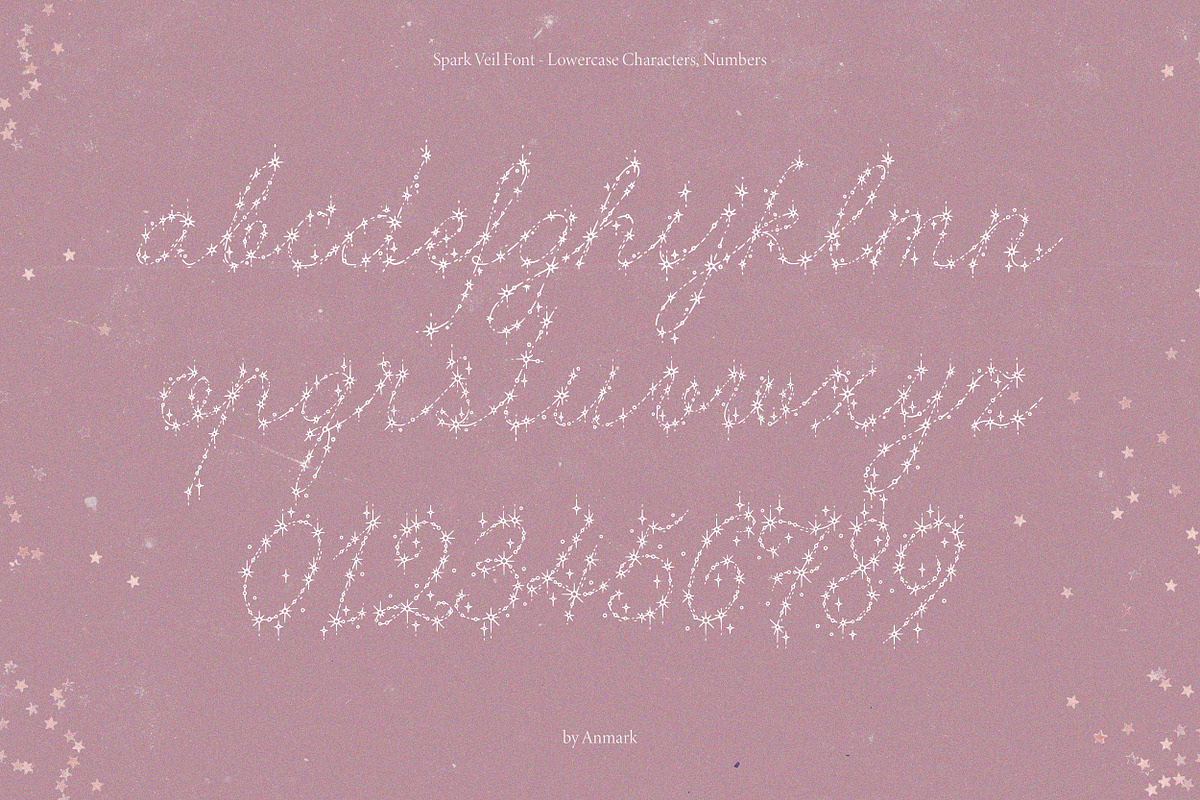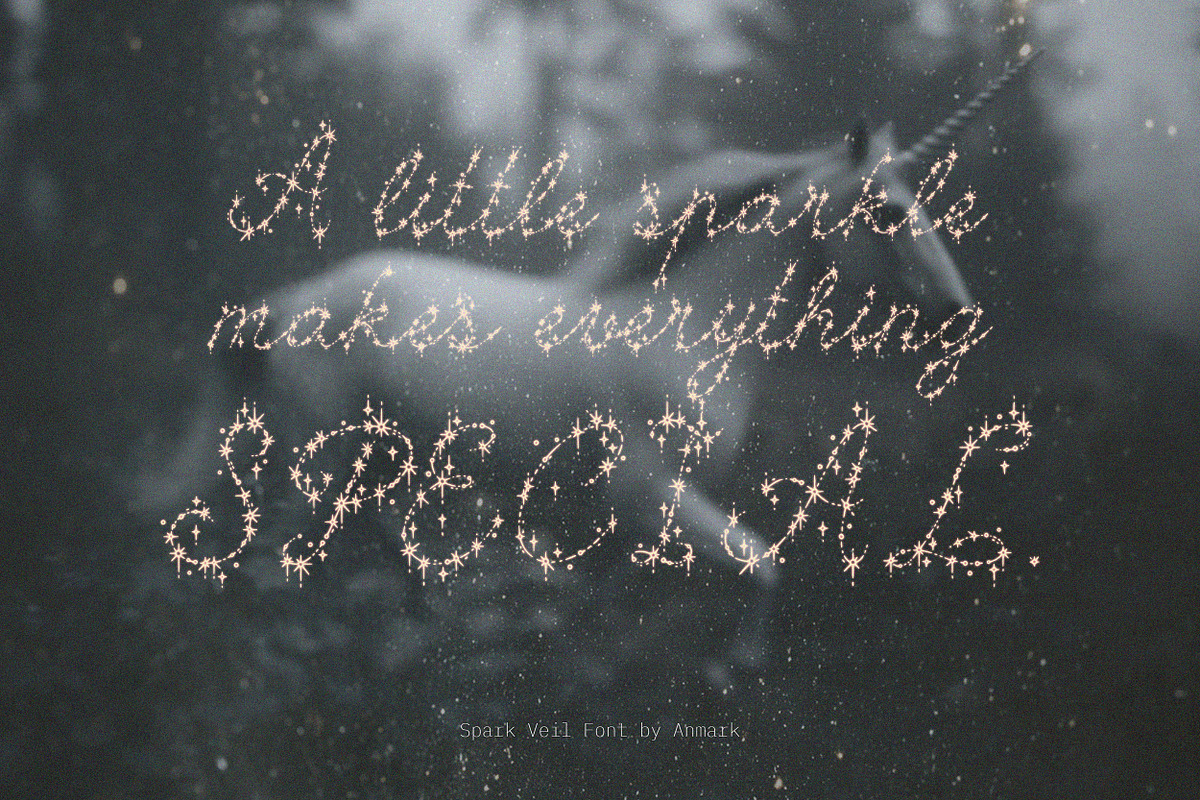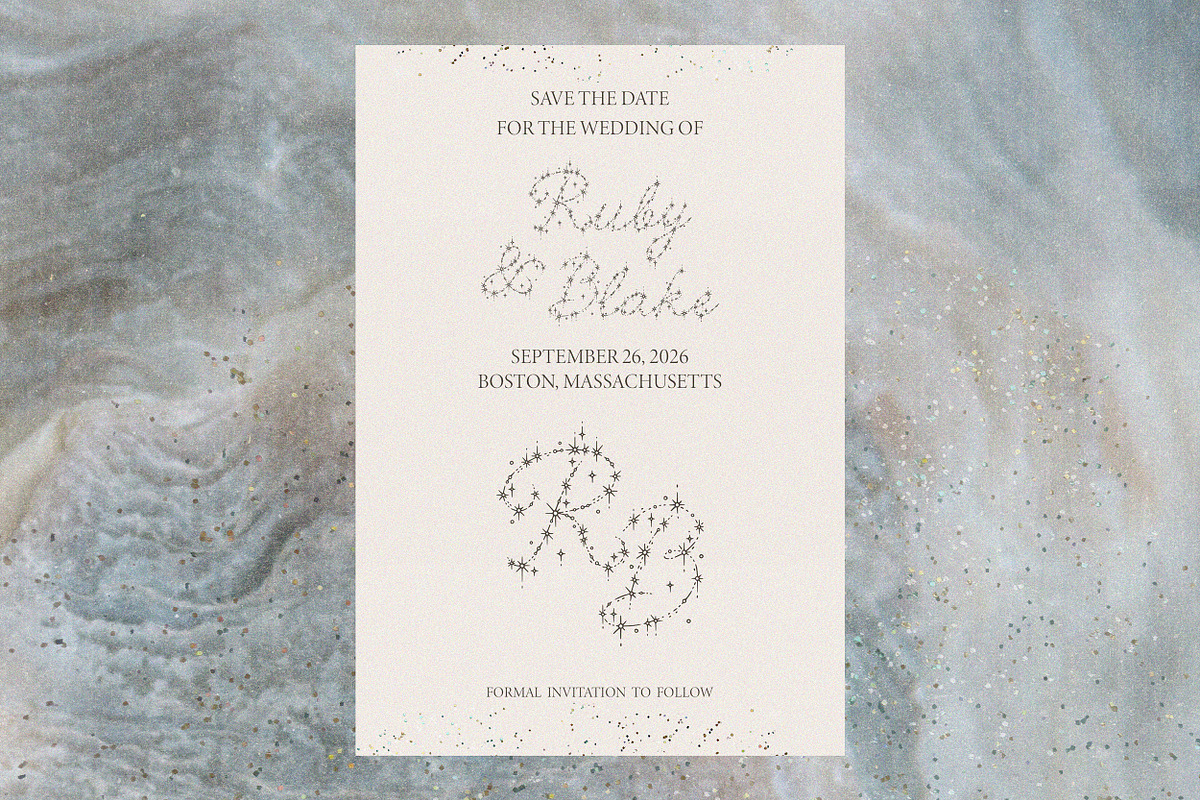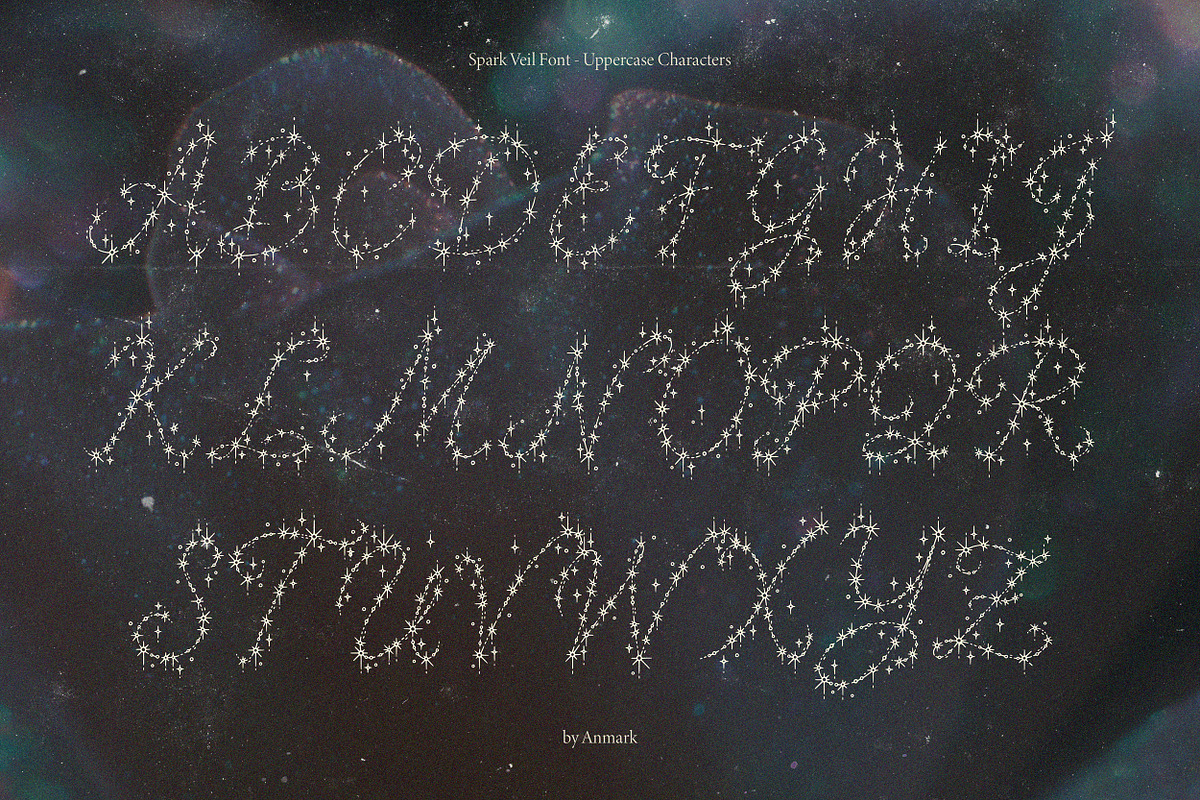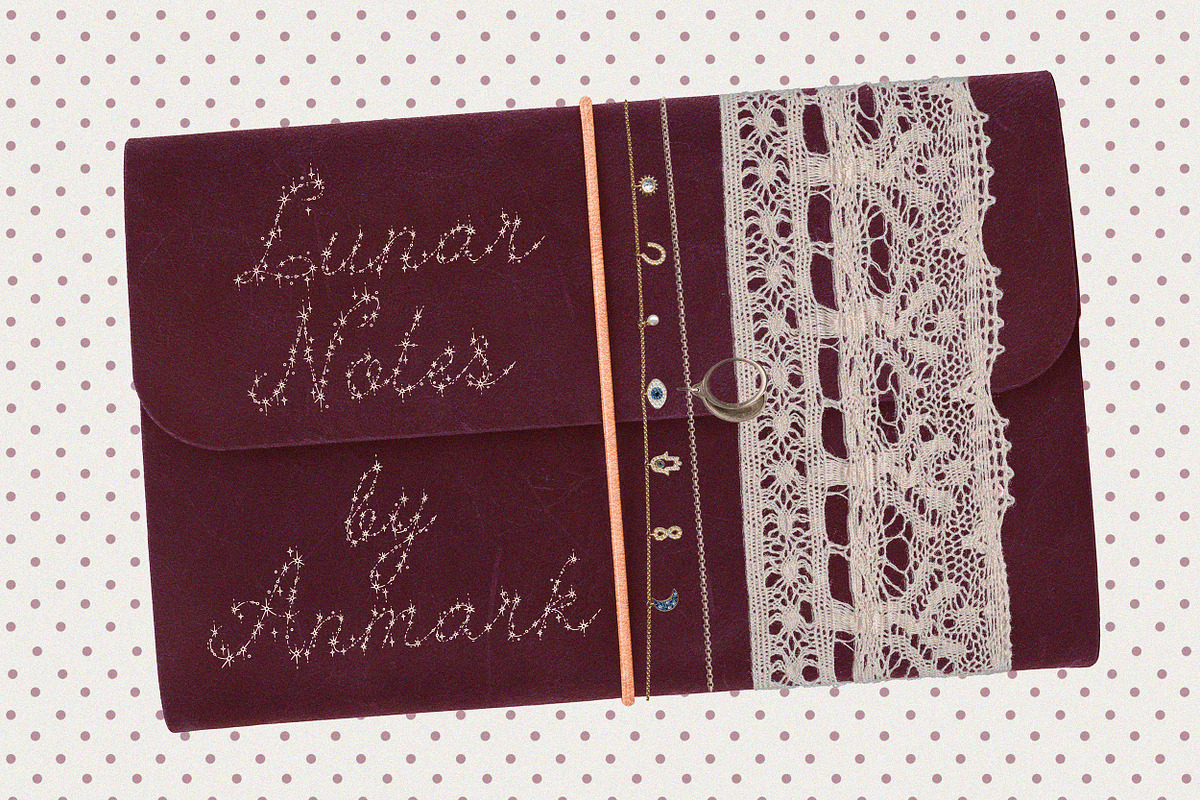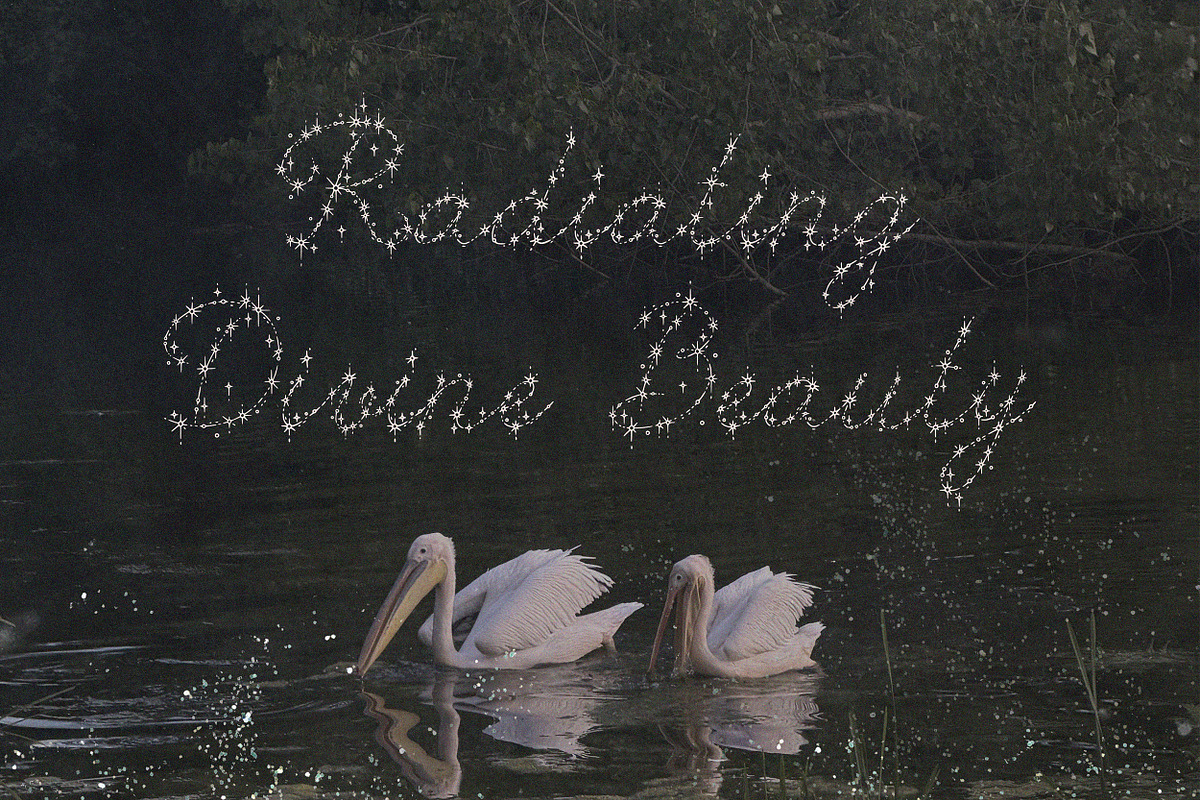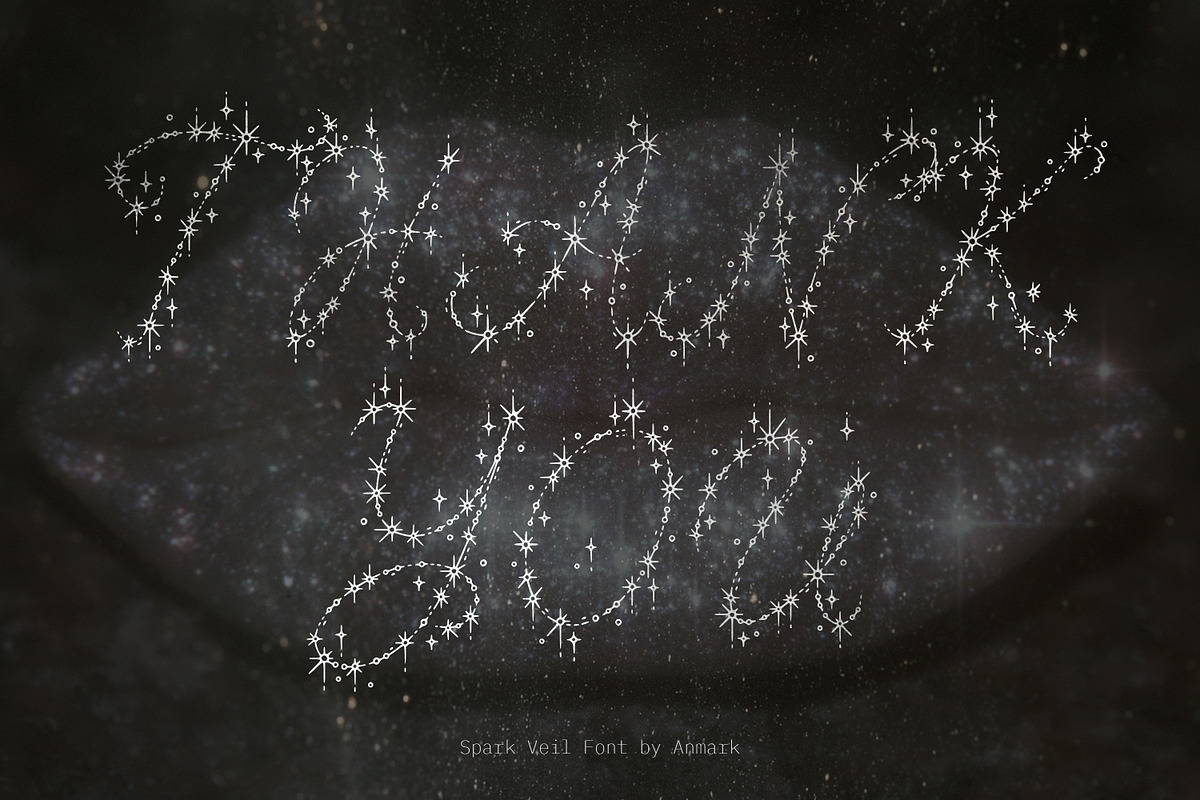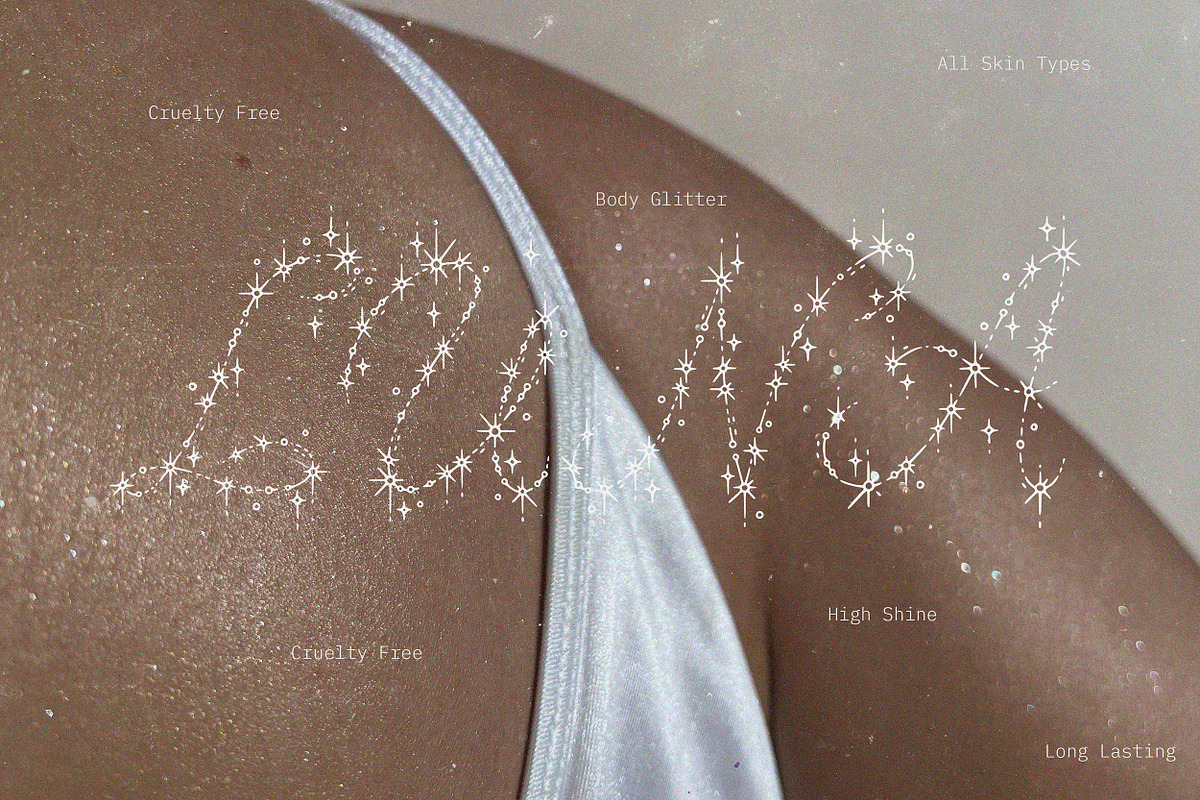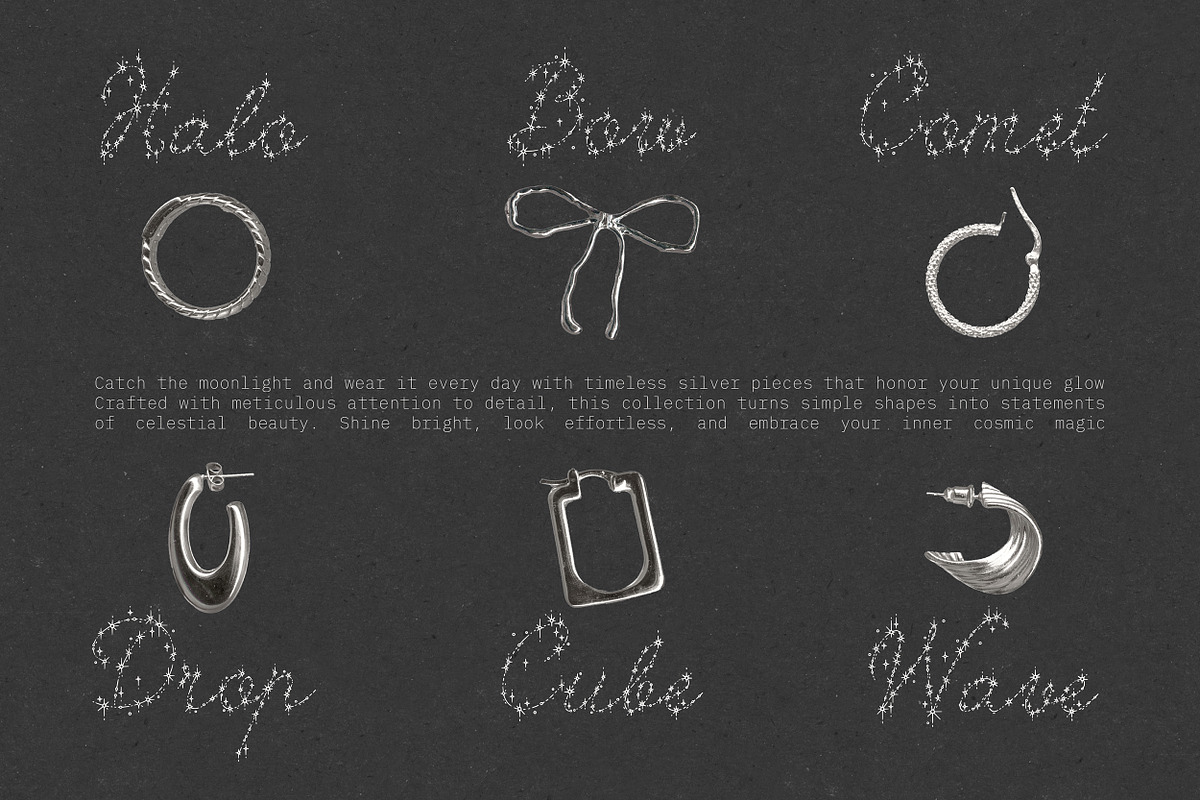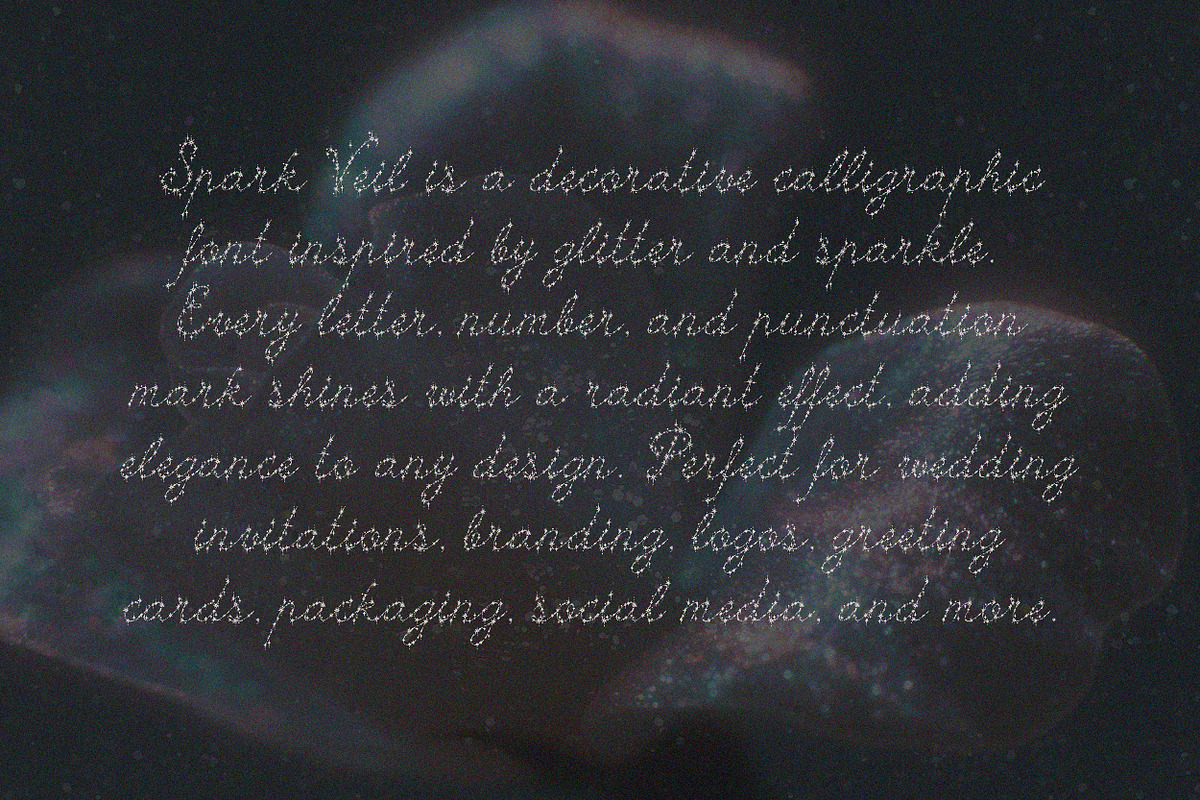
Spark Veil Decorative Glitter Font
Spark Veil is a decorative glitter font designed with a focus on luminous texture and soft sparkle details. Each letterform carries a subtle shimmer effect inspired by glitter particles, glowing highlights, and gentle light reflections. The shapes balance elegance and ornament, creating a refined display typeface with a bright, festive character and a handcrafted feel.
The font works well for wedding invitations, branding projects, logo design, monograms, social media graphics, product packaging, posters, greeting cards, beauty and fashion visuals, event stationery, and holiday themed designs. Spark Veil is especially suitable for projects that require a glamorous, radiant and eye catching typographic style. It performs best in display sizes where its sparkling structure and decorative detailing can be fully appreciated, making it a strong choice for headlines, titles and short text compositions.